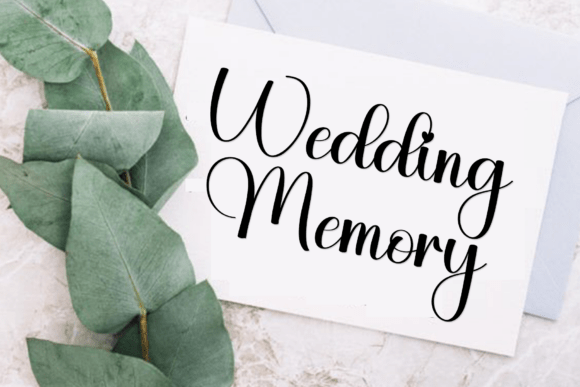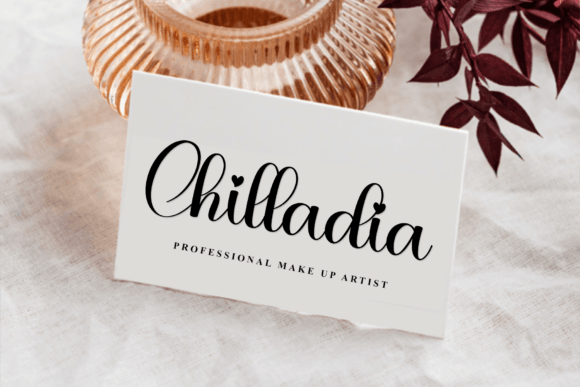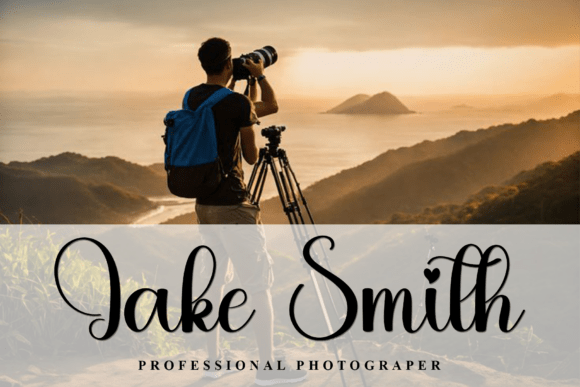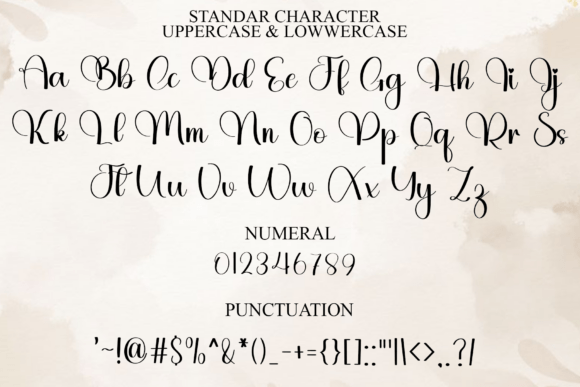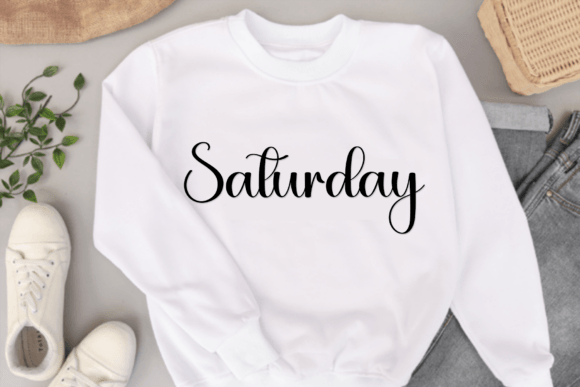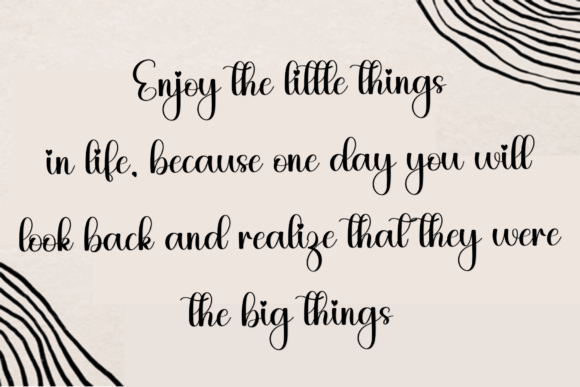
Brittany Charming Font: Add a Touch of Warmth and Friendliness to Your Designs
Are you looking for a font that can add a personal touch to your designs? Look no further than the Brittany Charming font. This casual and creative font is perfect for designers and crafters who want to create a relaxed and approachable feel in their work. With its round, playful strokes, the Brittany Charming font exudes warmth and friendliness, making it ideal for personal projects, invitations, and social media graphics.
The Charm of Hand-Drawn Aesthetic
The Brittany Charming font boasts a charming, hand-drawn aesthetic that adds a fun and unique touch to any design. Its playful strokes and rounded edges create a sense of approachability, making it perfect for designs that require a personal touch. Whether you’re creating invitations, social media graphics, or personal projects, this font is sure to make your work stand out.
The Brittany Charming font is a must-have for designers and crafters who want to add a personal touch to their work. Its casual and creative vibe makes it perfect for a wide range of projects, from personal invitations to social media graphics. With this font, you can create designs that are not only visually appealing but also convey a sense of warmth and friendliness.
Key Features of Brittany Charming Font
- Casual and creative font with a relaxed and approachable feel
- Round, playful strokes create a sense of warmth and friendliness
- Charming, hand-drawn aesthetic adds a fun and unique touch to any design
- Perfect for personal projects, invitations, and social media graphics
The Brittany Charming font is a must-have for designers and crafters who want to add a personal touch to their work. With its casual and creative vibe, charming hand-drawn aesthetic, and versatility, this font is perfect for a wide range of projects. Whether you’re creating personal invitations, social media graphics, or personal projects, the Brittany Charming font is sure to make your work stand out.